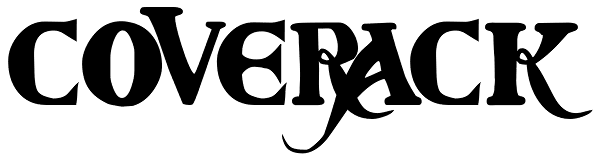
Coverack
Coverack was inspired by some hand lettering spotted by Dave Nalle on a pub menu blackboard during a recent trip to England. It's in the tradition of Celtic uncial lettering, but is extra bold and has some fantastical embellishments. The name comes...